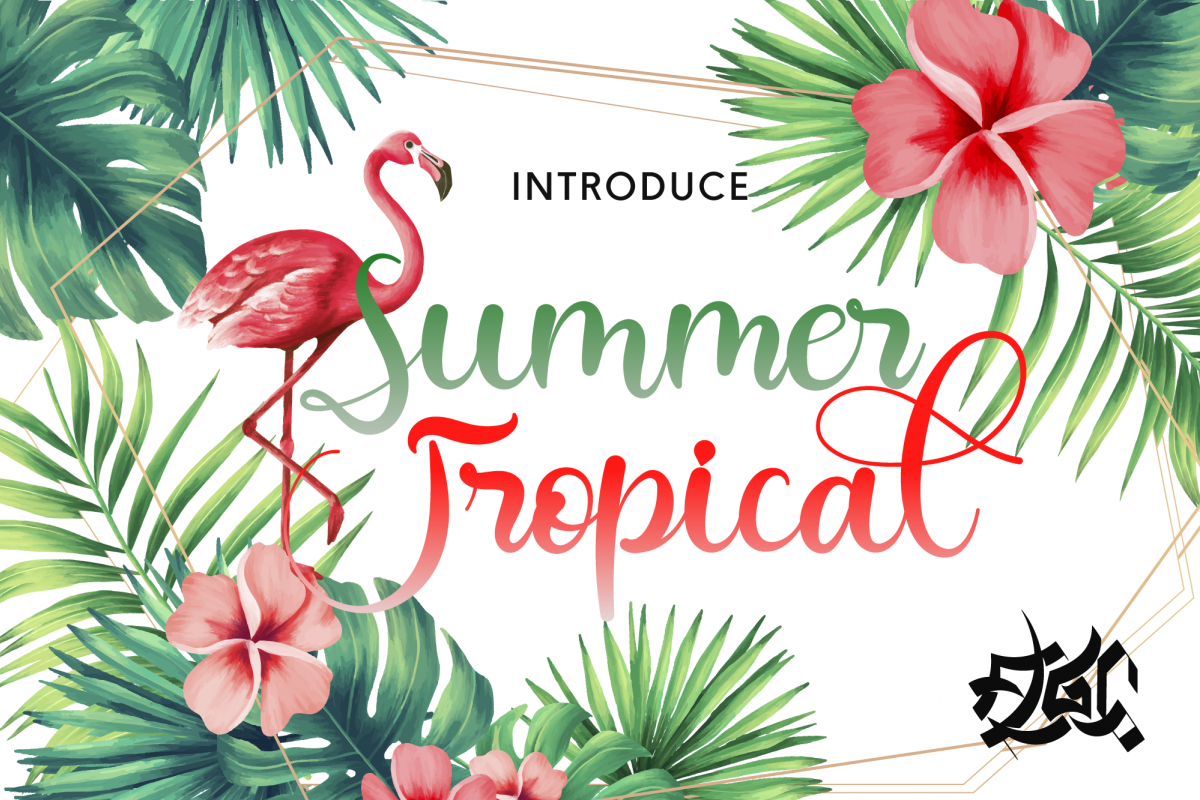
Summer Tropical
Summer Tropical a Funny script with a feminimst calligraphy style, decorative characters . in this font script there are many alternative choices of characters Support Ligature and Stylistic set. So beautiful on invitation like greeting cards, branding materials, business cards, quotes, posters,wedding invitations and more!!
Summer Tropical